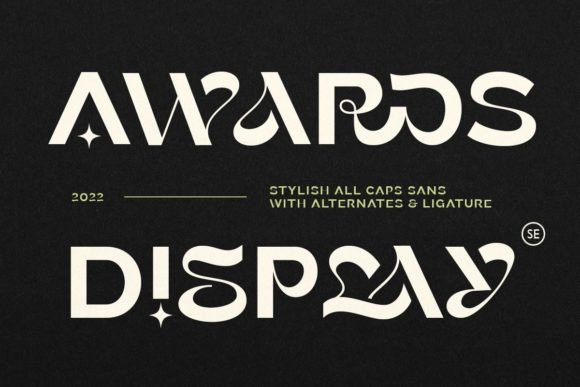
Introducing Awards Font - A Pinnacle of Excellence for Your Design Endeavors
In the realm of typography, Awards Font stands as a beacon of creativity, seamlessly harmonizing modernity and elegance. Its captivating sans serif design commands attention, while its unique lowercase letters add a touch of personal flair to your branding and logo creations. As a crowning jewel, the font boasts stylish ligatures that elevate your designs to new heights of sophistication, transforming them into stunning masterpieces.
Unleash Your Inner Artist with Awards Font
Awards Font is not just a collection of letters; it's an invitation to unleash your inner artist and explore the limitless possibilities of creative expression. Whether you're crafting a captivating magazine layout, designing an unforgettable logo, or simply seeking to add a touch of uniqueness to your digital creations, Awards Font rises to the occasion. Its versatility knows no bounds, effortlessly adapting to any project you envision.
Embark on a Journey of Typographic Excellence
With Awards Font as your trusted companion, you'll embark on a journey of typographic excellence, leaving a trail of admiring glances in your wake. Its clean lines and crisp edges exude a sense of professionalism, while its subtle nuances hint at a playful spirit. As you weave your words into a visual symphony, Awards Font becomes your trusty guide, ensuring every letter, every word, and every sentence carries the weight of your message with grace and impact.
Beyond the Ordinary, Into the Realm of the Extraordinary
Awards Font transcends the boundaries of the ordinary, propelling your designs into the realm of the extraordinary. Its starry alternates ignite a celestial aura, transforming your creations into a constellation of captivating elements. With Awards Font, you'll discover a universe of typographic possibilities, where imagination roams free and brilliance knows no limits.
Elevate Your Designs to Unprecedented Heights
As you embrace Awards Font, you'll witness the transformation of your designs, as they rise to unprecedented heights of visual appeal. Its modern and styled aesthetic captivates audiences, leaving an unforgettable impression that lingers long after the page is turned. Prepare to be awestruck by the compliments and accolades that pour in, as your designs become the talk of the town, the envy of competitors, and the inspiration for aspiring creatives.